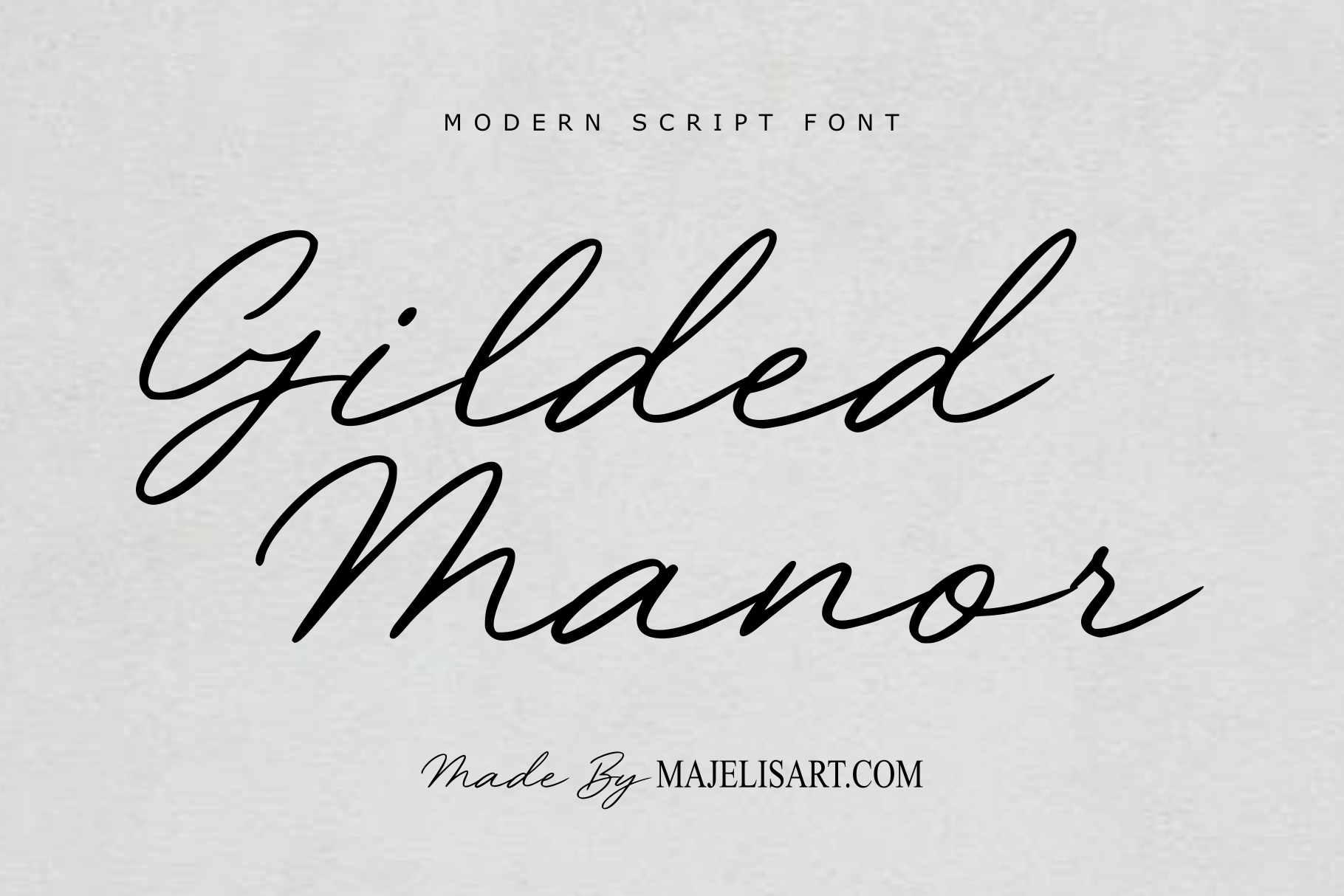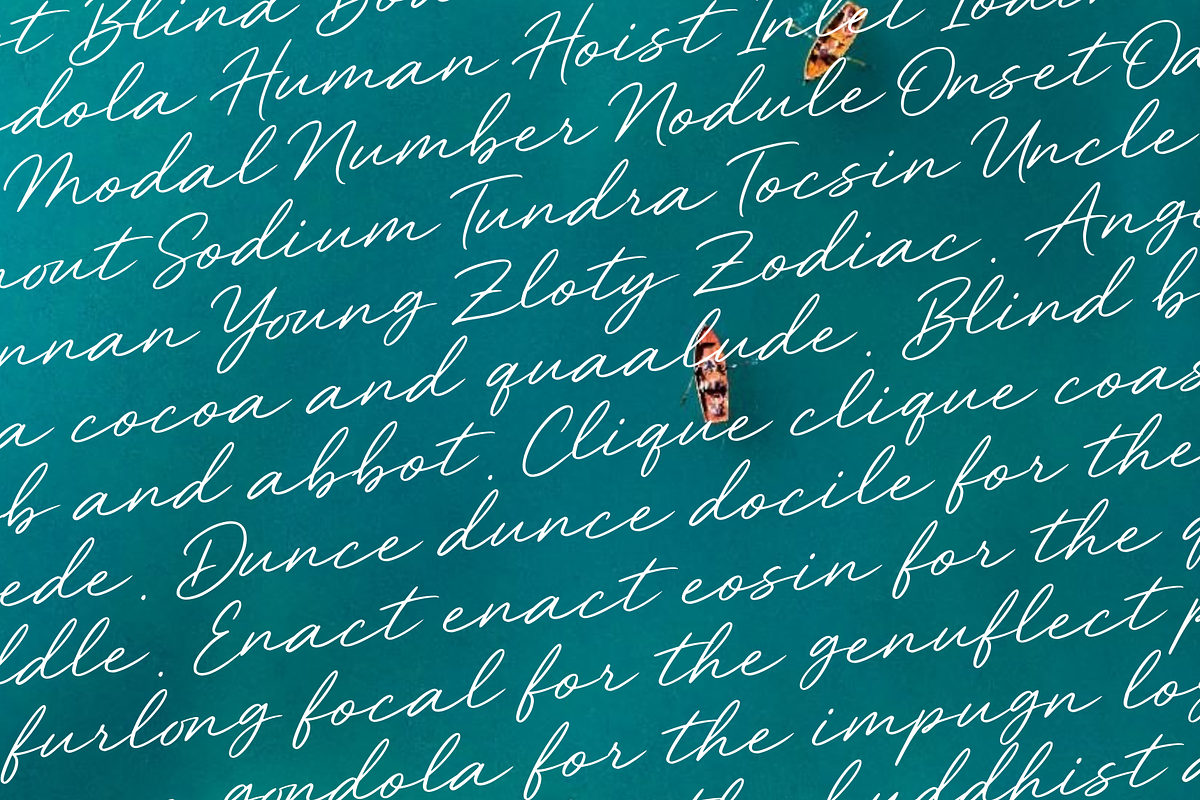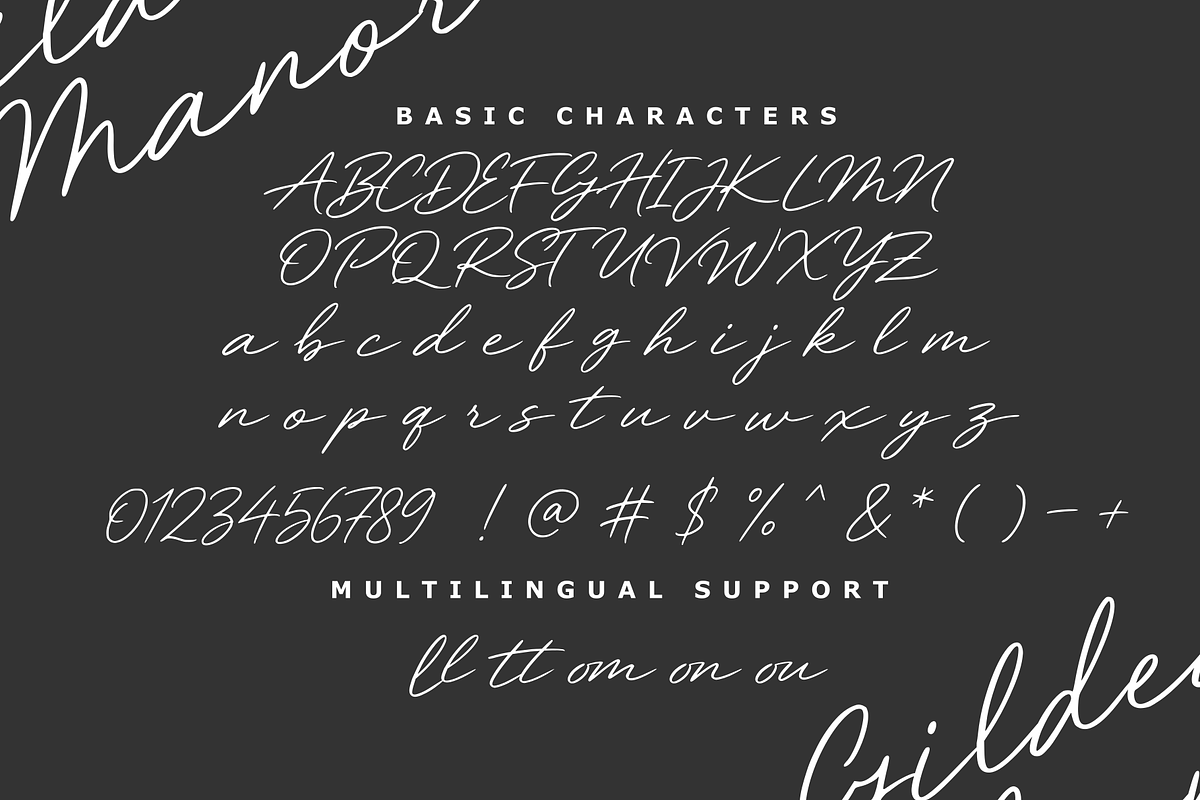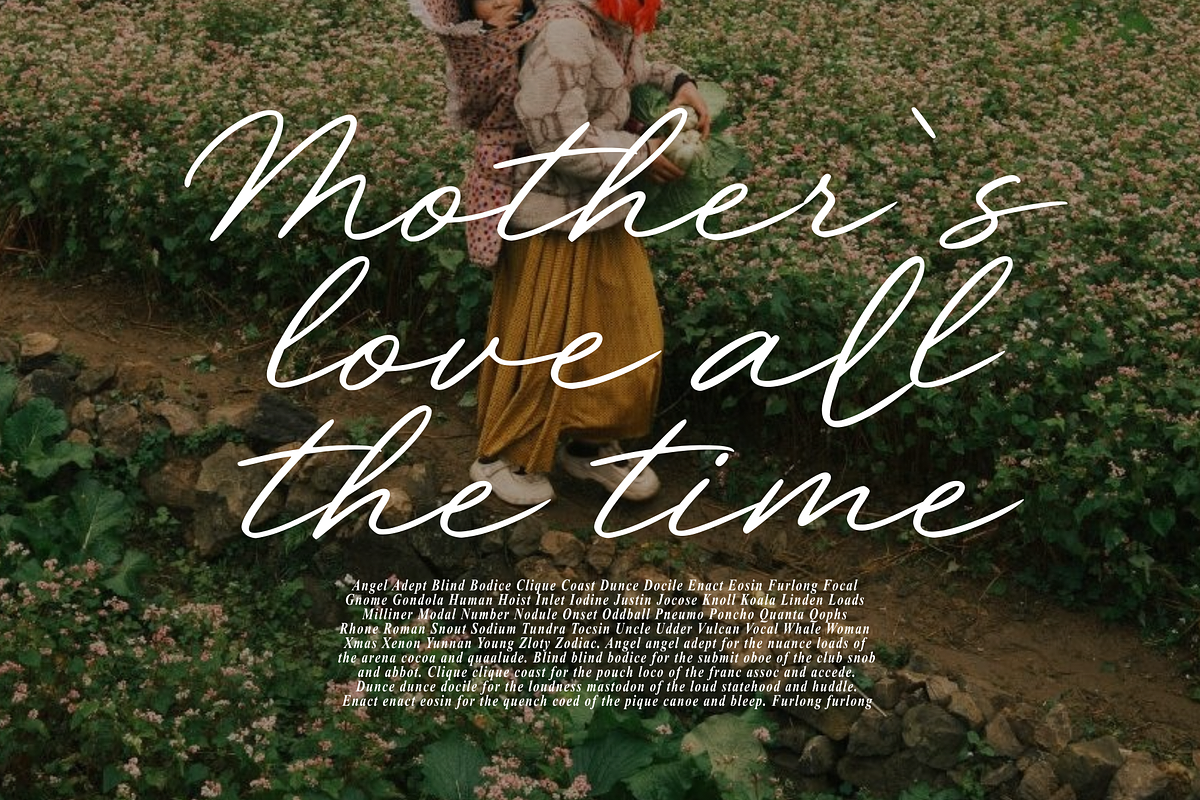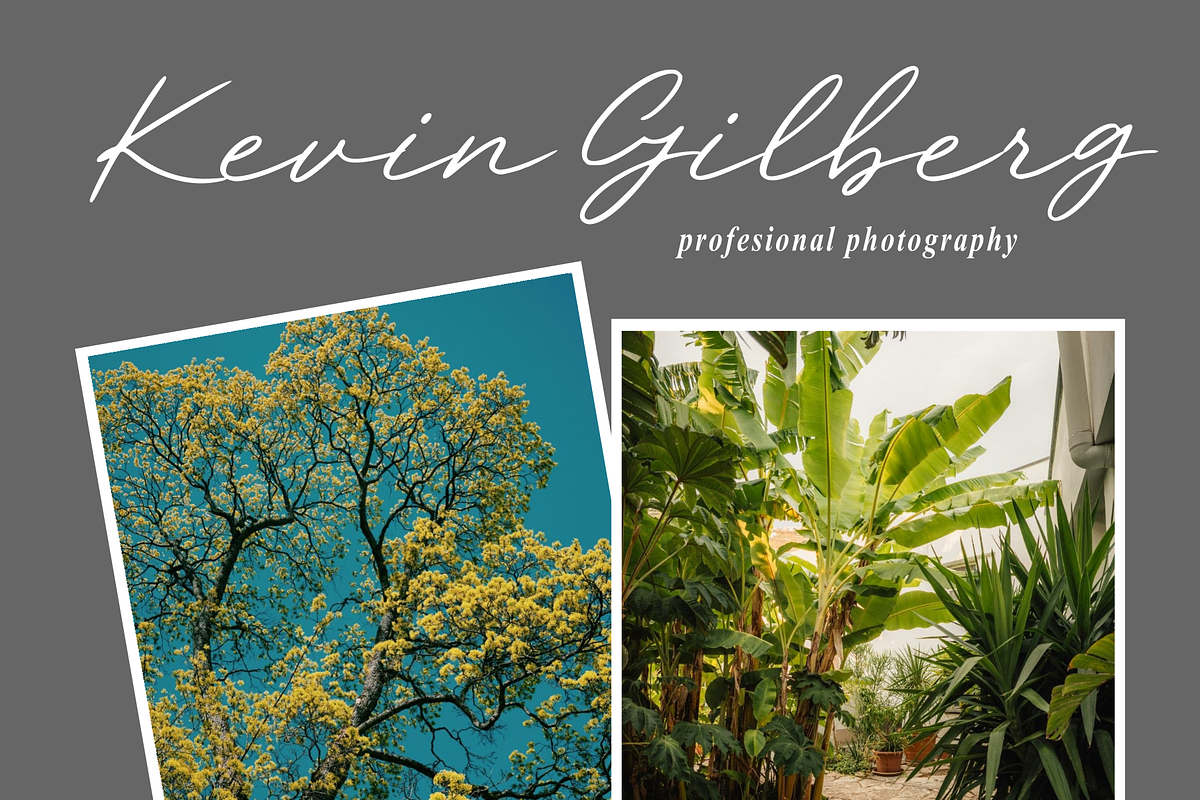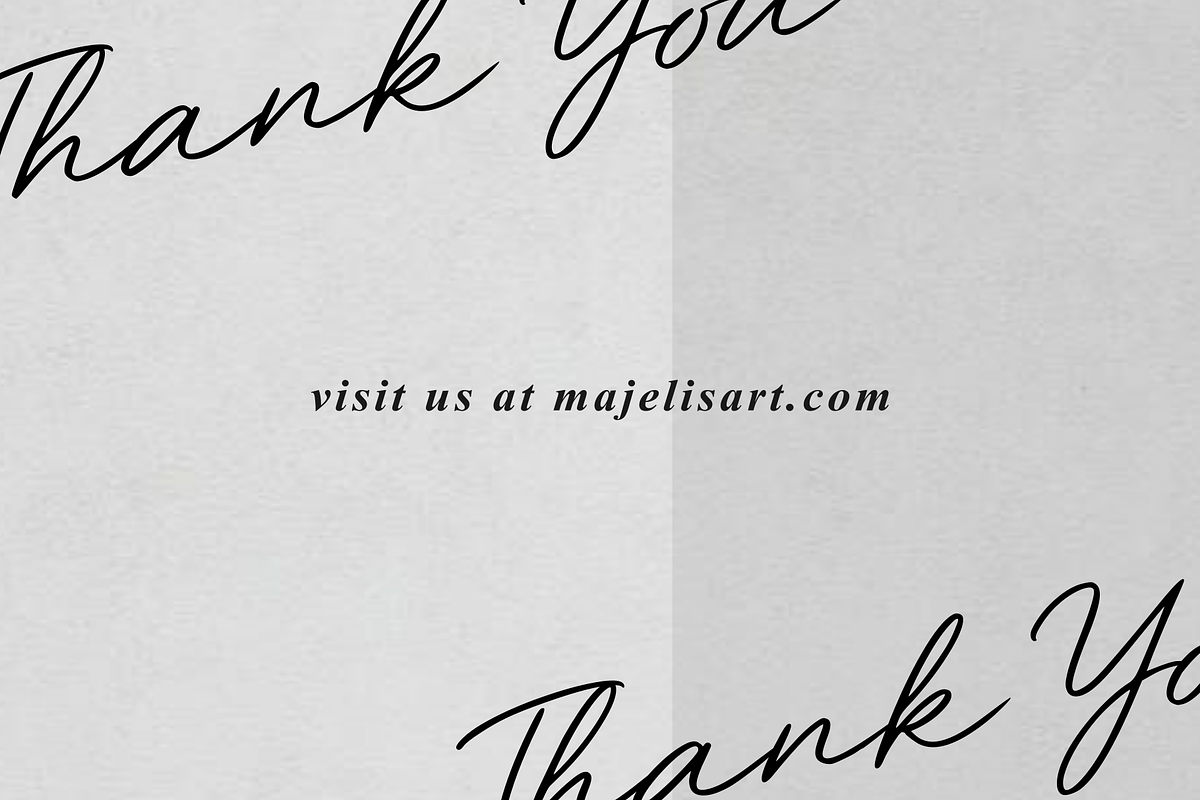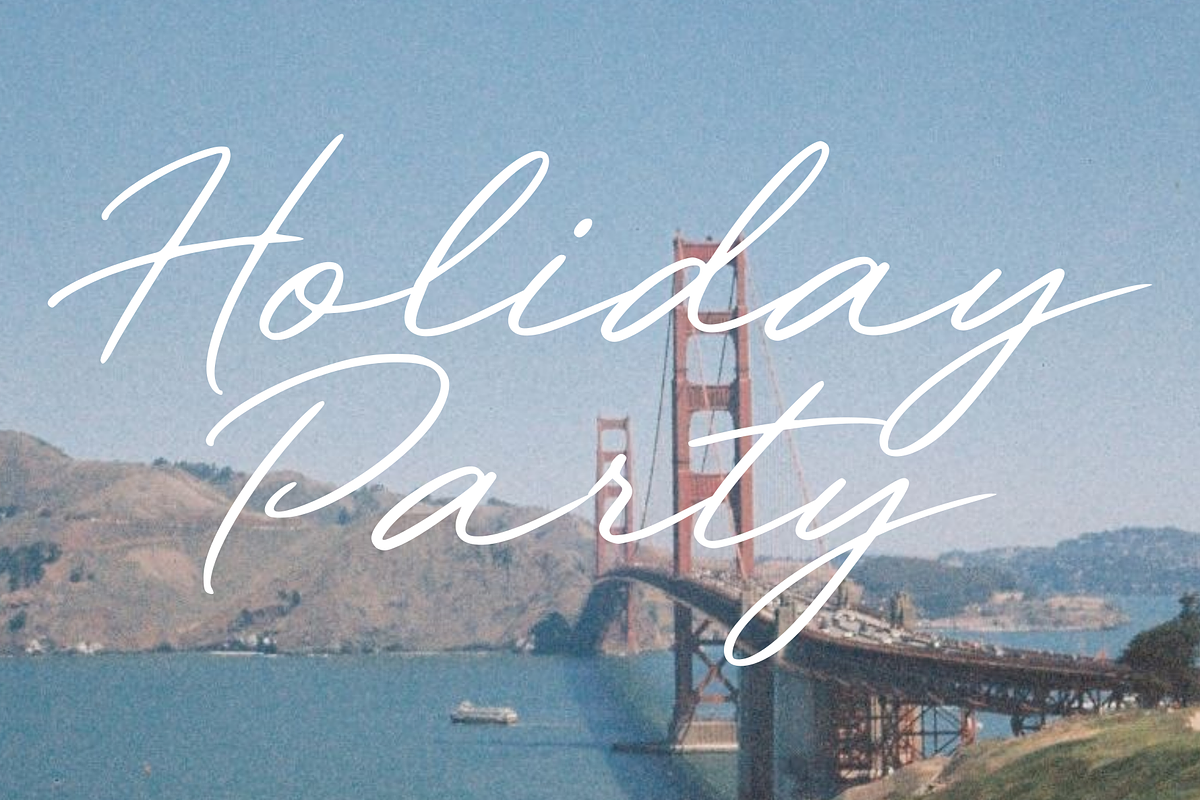
Gilded Manor - Script font
Modern Signature Script Font Introducing a sophisticated Modern Script Typeface designed with elegant, flowing strokes and a natural handwritten feel. This font combines delicate curves, long sweeping strokes, and an authentic signature style, creating a refined and personal appearance. Its graceful letterforms make it perfect for designs that need a touch of elegance, luxury, and individuality.
Perfect For Signature & personal branding Logo & branding Wedding invitations Wedding stationery Beauty & fashion branding Photography logos Boutique branding Luxury products Packaging design Social media graphics Business cards Invitations Quotes & greeting cards Watermarks Product labels Editorial designs Apparel & merchandise
Multilingual Support This font includes multilingual support, allowing you to create elegant designs for a wide range of languages using supported Latin-based characters.
Elegant strokes. Personal character. Timeless style.